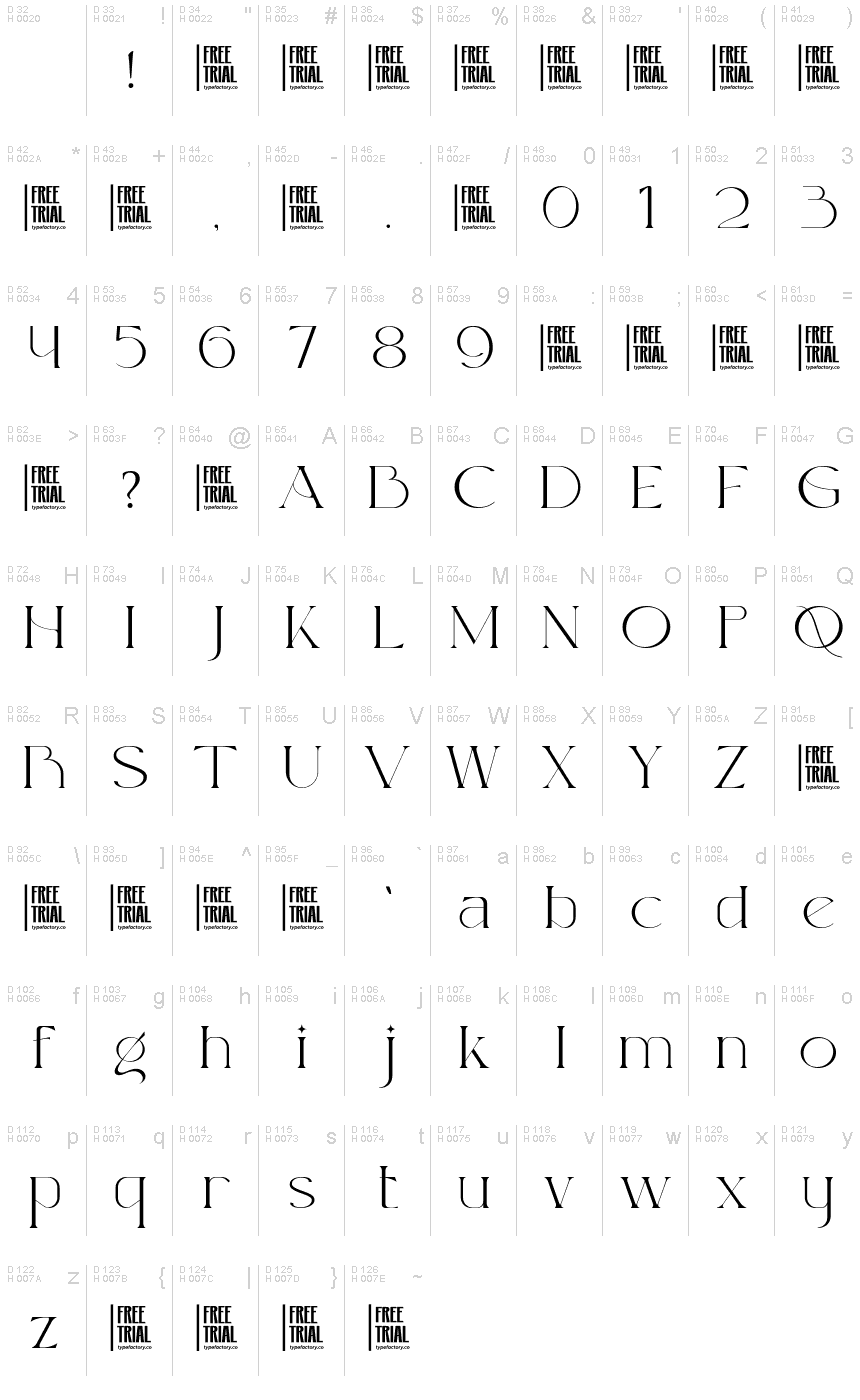
Giove Free Trial
Giove, a creation of Typefactoryco, stands out as a modern display font that combines elegance with versatility. With its semi-light weight and semi-expanded width, this serif typeface offers an aesthetic that is both exquisite and understated. Designed to complement a wide array of creative projects, Giove's refined curves and subtle sophistication make it an ideal choice for designers seeking to convey a sense of delicacy without sacrificing impact.
Whether applied to branding, editorial design, or sophisticated invitations, Giove ensures your work will leave a lasting impression with its unique blend of contemporary style and classic charm.